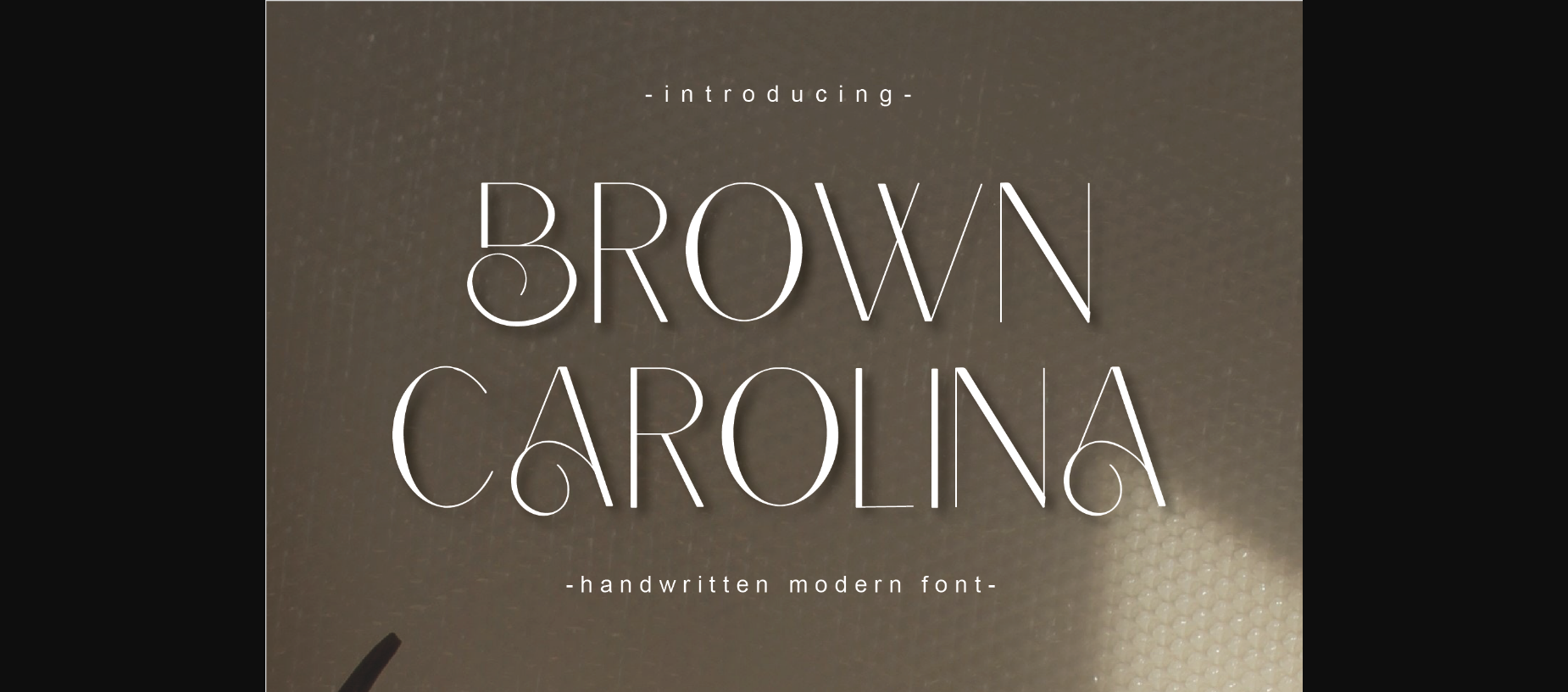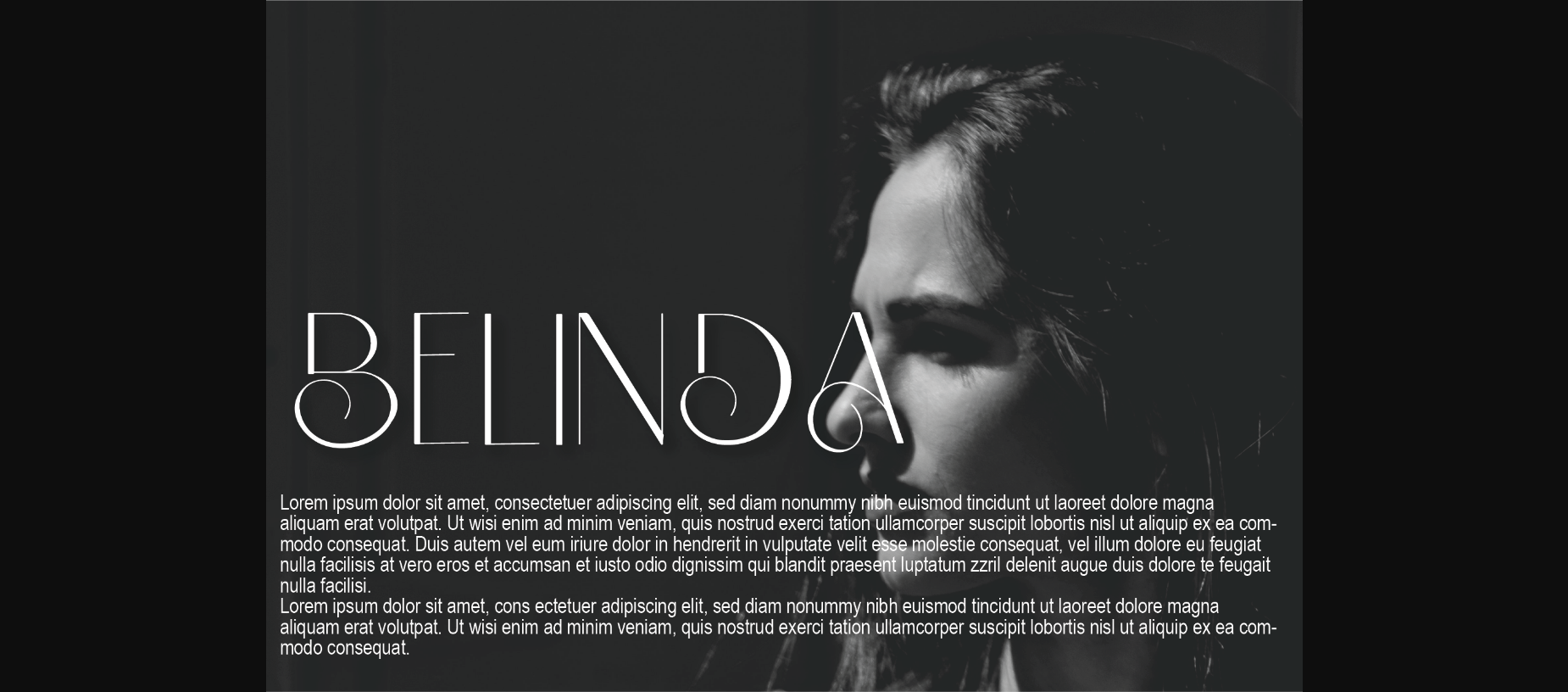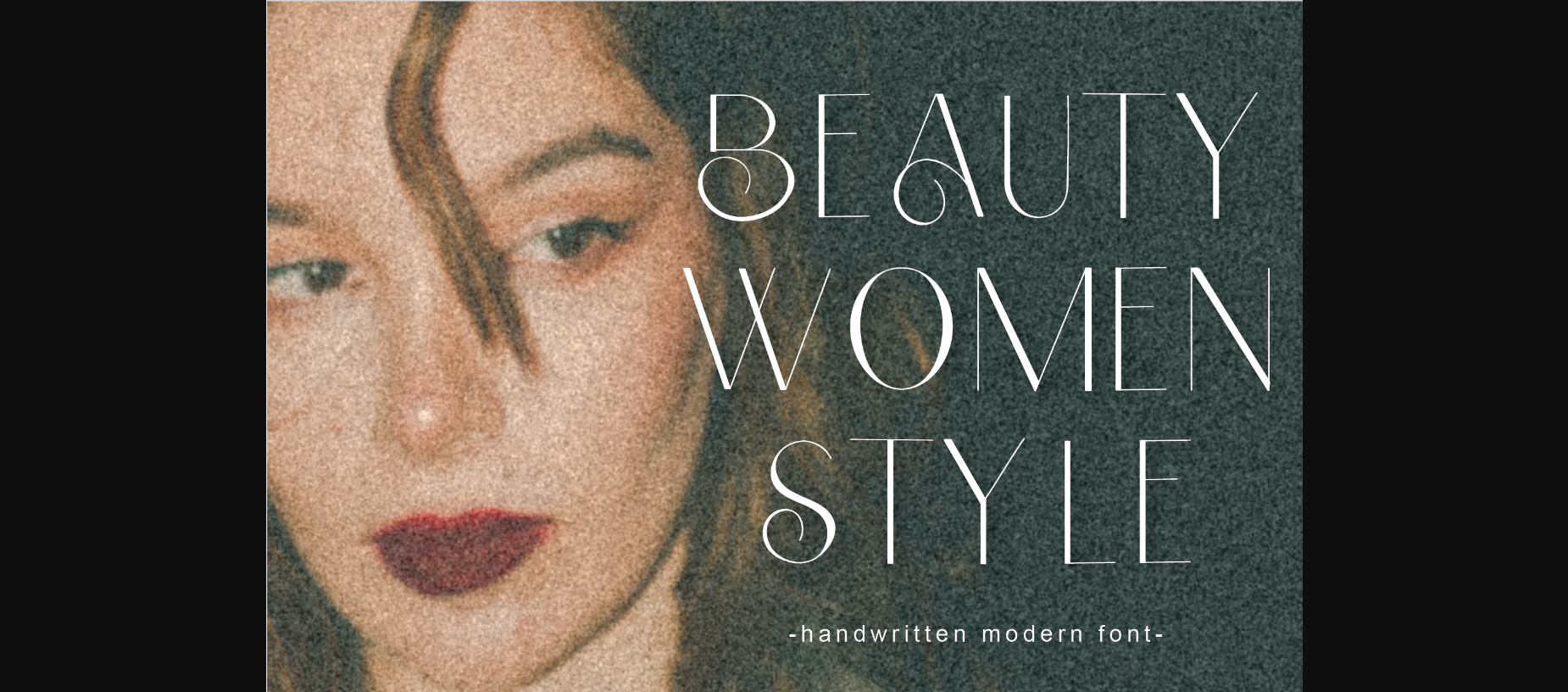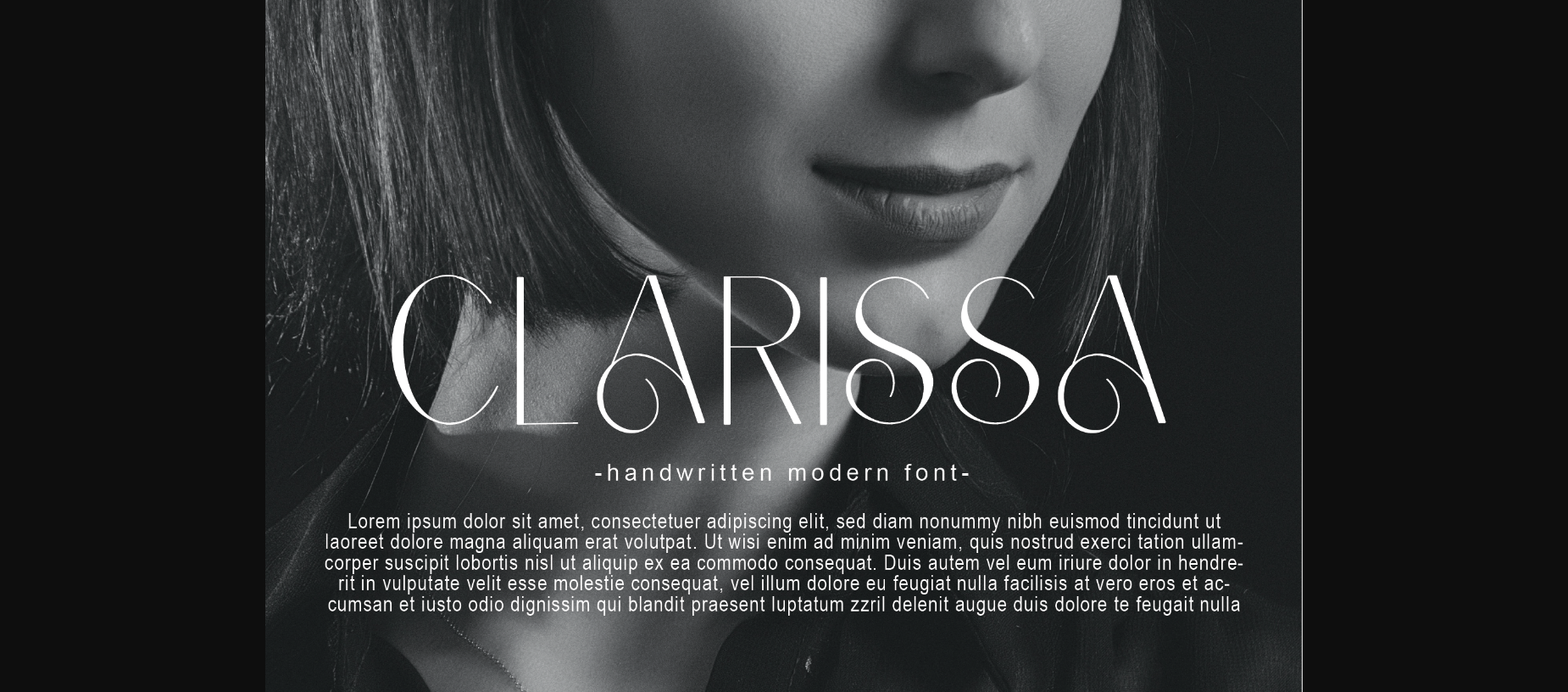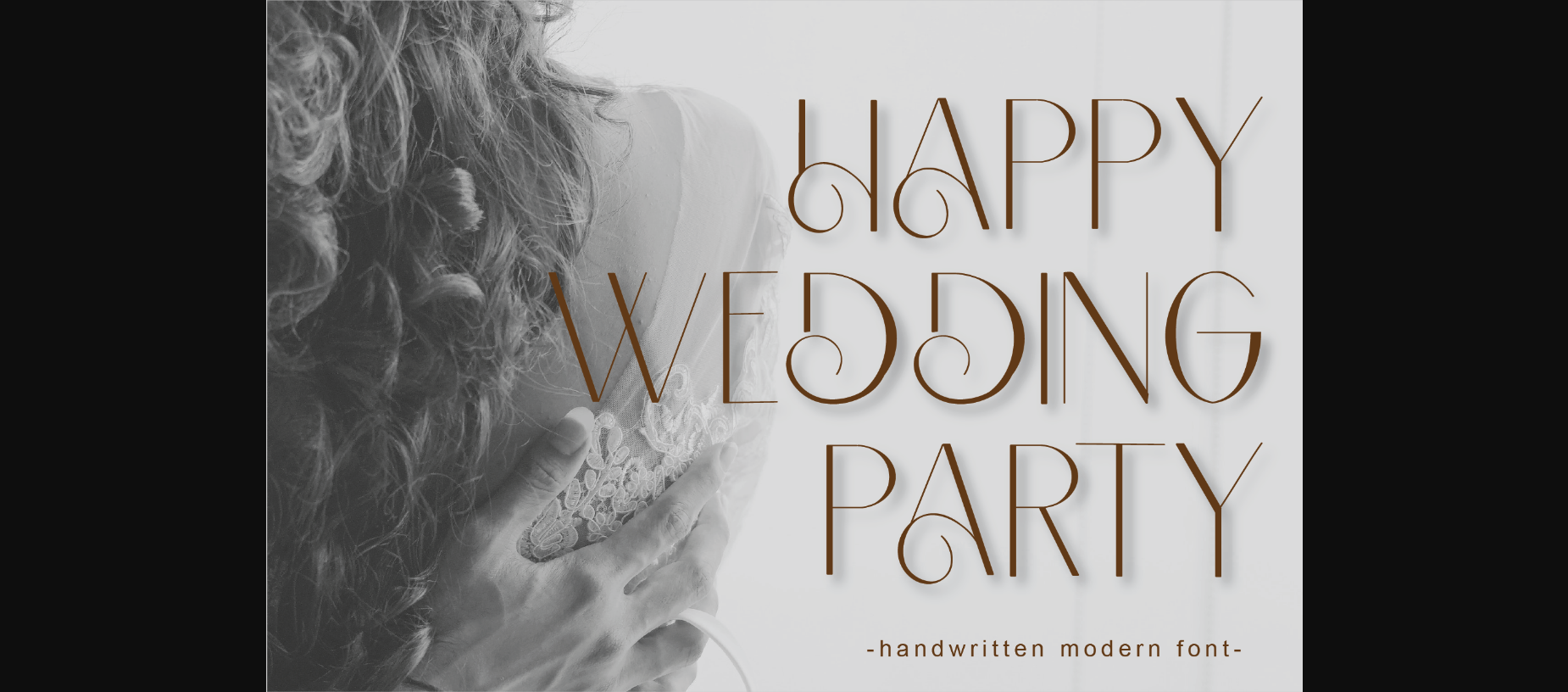
Brown Carolina Font
About Brown Carolina Font
Brown Carolina is a stylish and sophisticated sans-serif font that looks both modern and futuristic. Add this font to your creative ideas, and see how it stands out and looks perfect for your project!